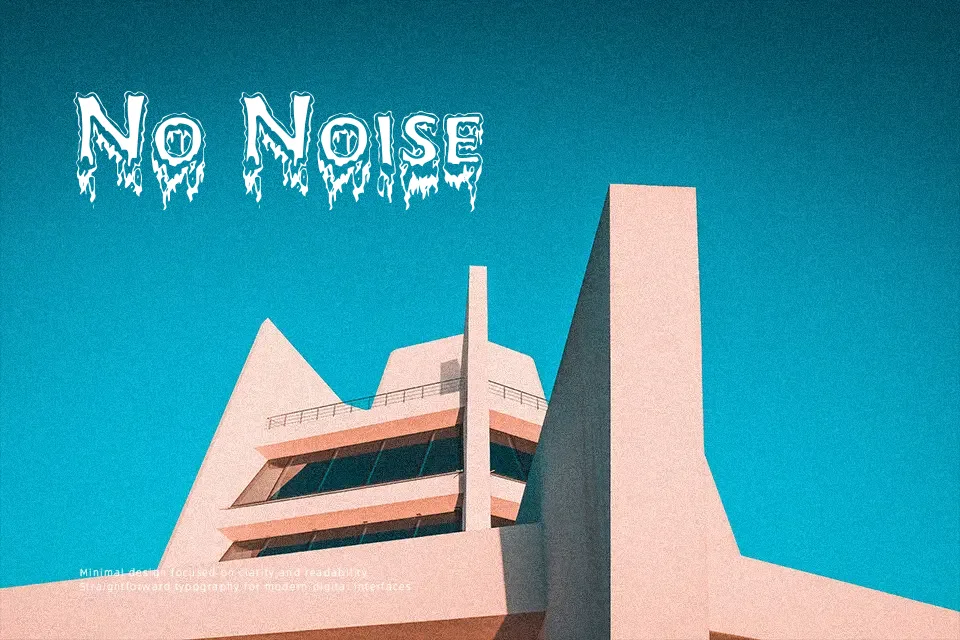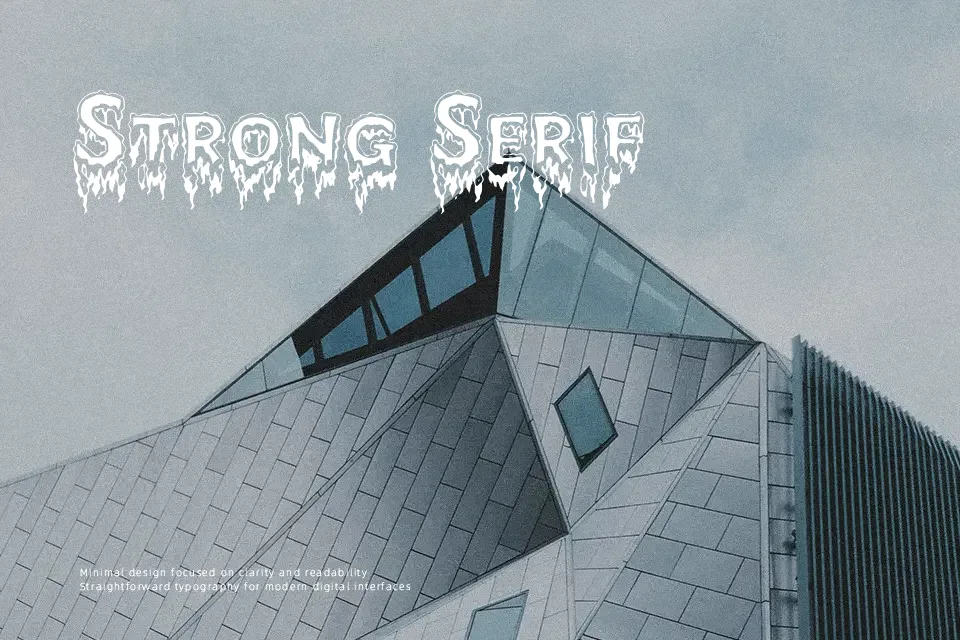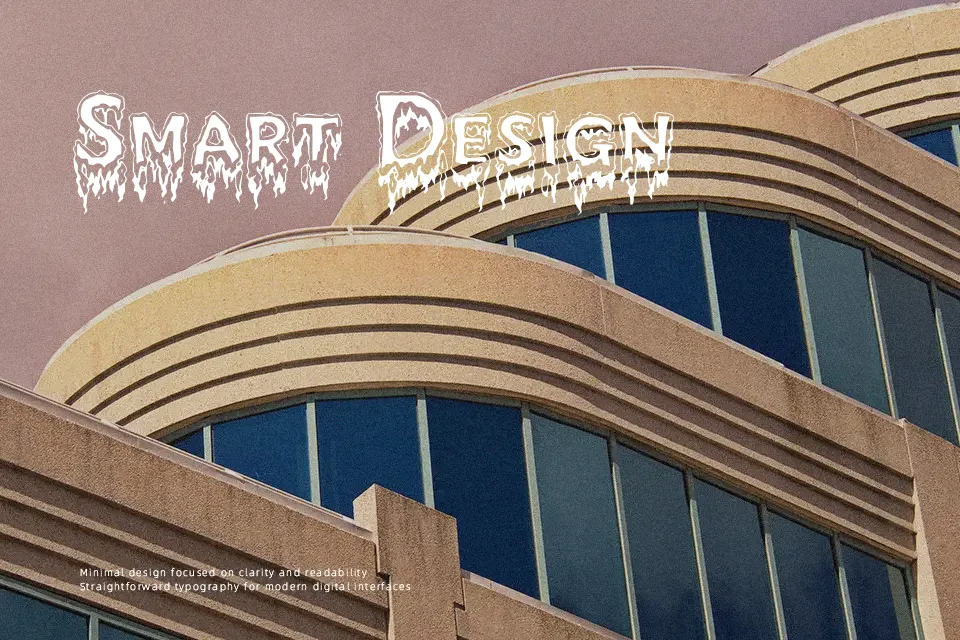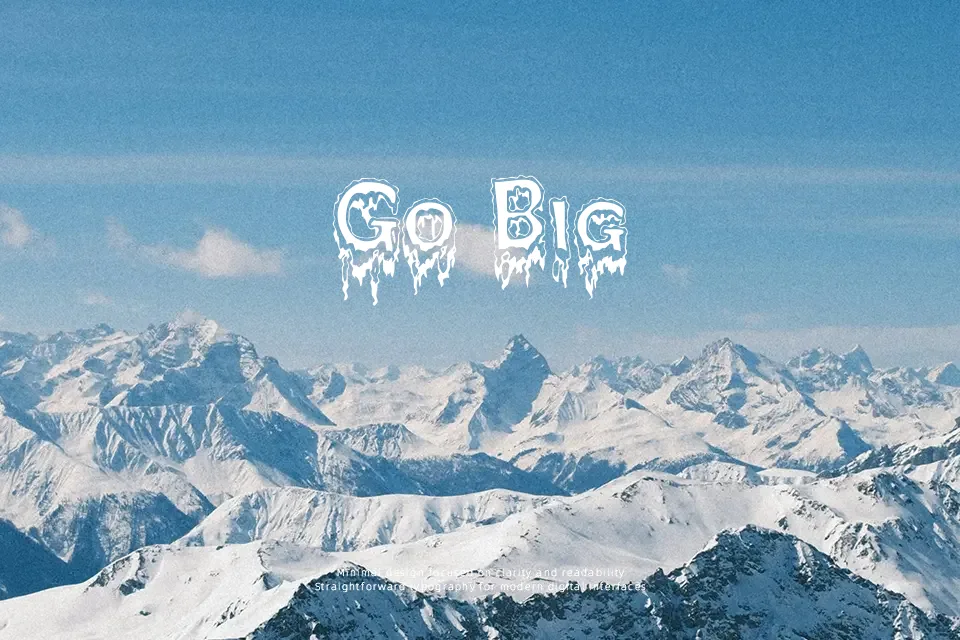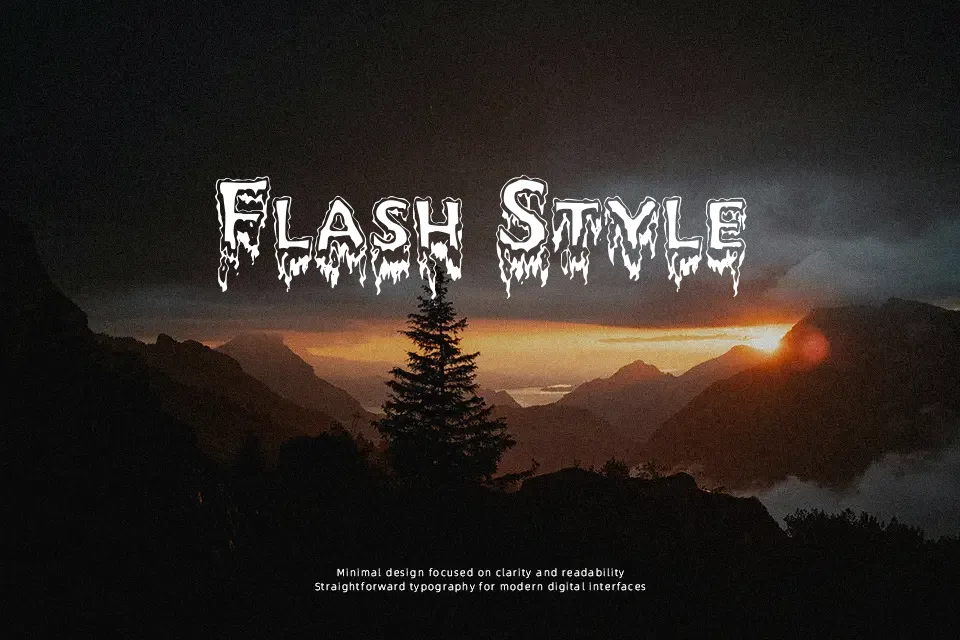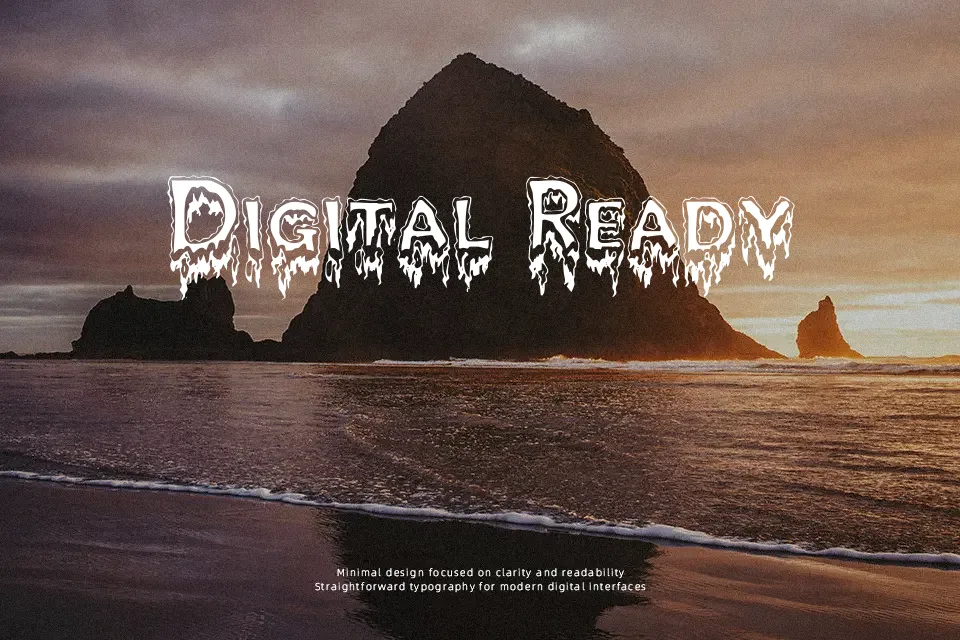
Kreepshow Frigid Font
Designed by HypoTypo
Cold, jagged edges and melting stroke details give Kreepshow Frigid a distinctly frozen horror feel. The characters look as if they’re dripping or cracking under frost, with uneven spacing that adds tension and unease. It leans heavily into decorative display use, making it effective for horror movie posters, spooky event banners, or YouTube thumbnails centered on eerie themes. However, readability drops quickly at smaller sizes, and the irregular shapes can feel chaotic in longer words. It performs best in short, impactful phrases rather than dense layouts or structured typography.
Halloween event posters
horror movie thumbnails
haunted attraction signage
corporate branding materials
small UI labels
Perfect for film, halloween, and headline, with a cold and decorative style.